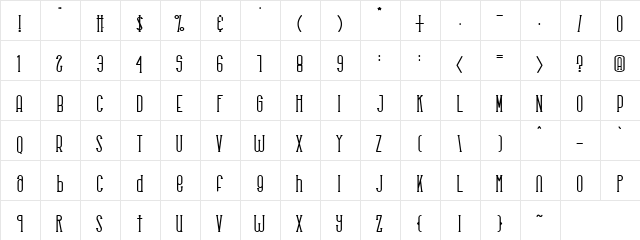
Rhantica Serif
| Style | Serif |
| Foundry | Stefie Justprince |
| Designer | Stefie Justprince |
Design Context for Rhantica Typeface
Rhantica brings classic typographic sensibility to the table — its serifs and measured letterforms reflect centuries of print heritage.